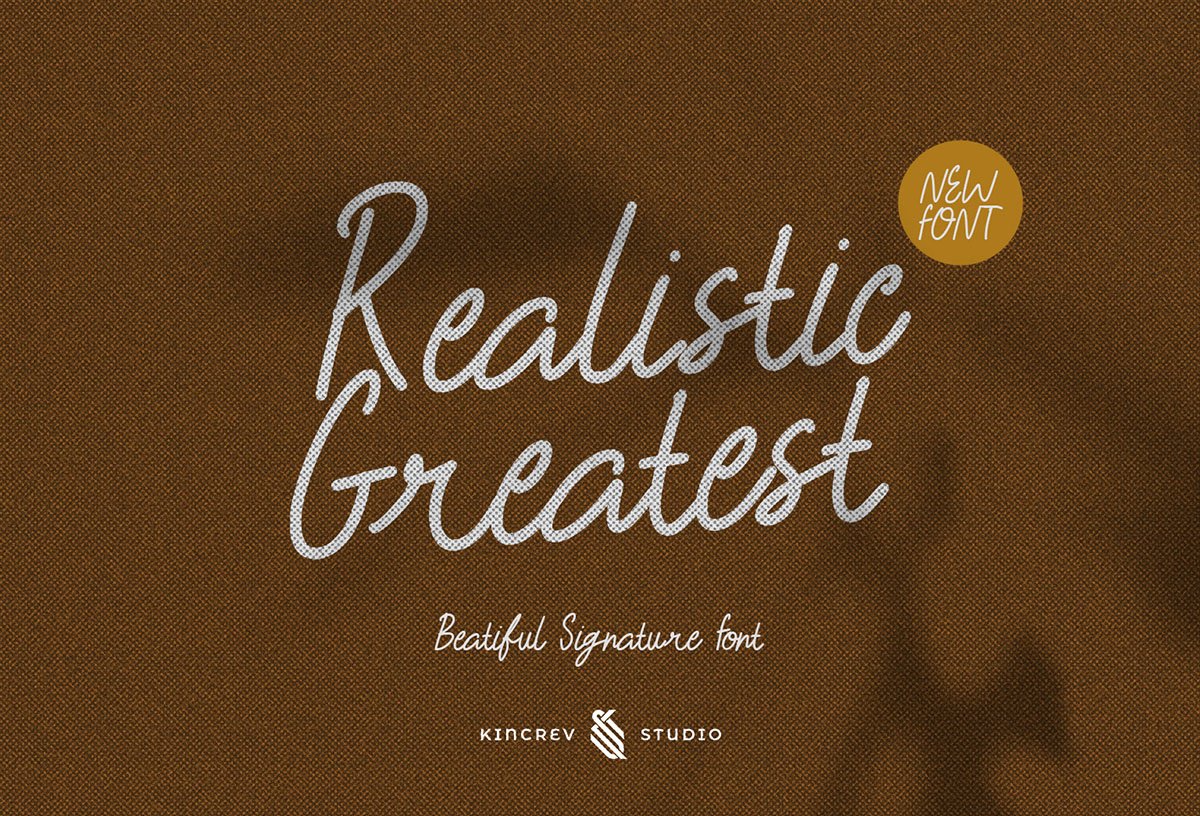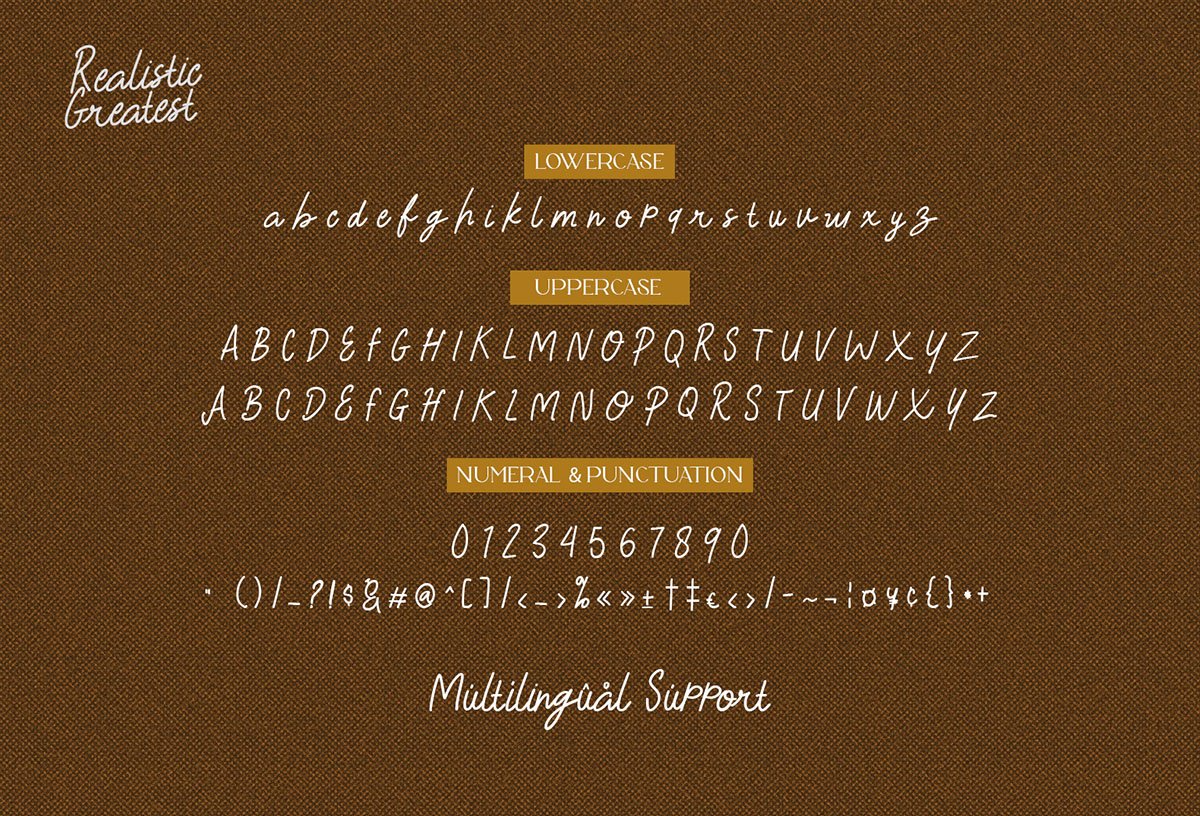
Realistic Greatest Script Font is here! It is suitable for logos, posters, modern advertising design, product labels, t-shirts, YouTube thumbnail/cover, poster quote, editorial design, book / cover Title, website / blog, social media post, packaging designs and other designs.